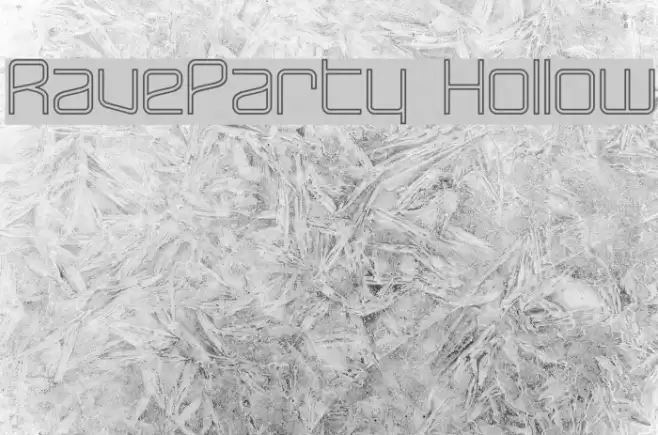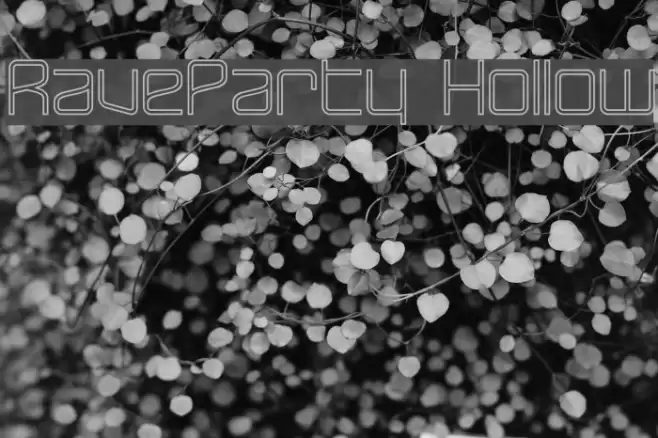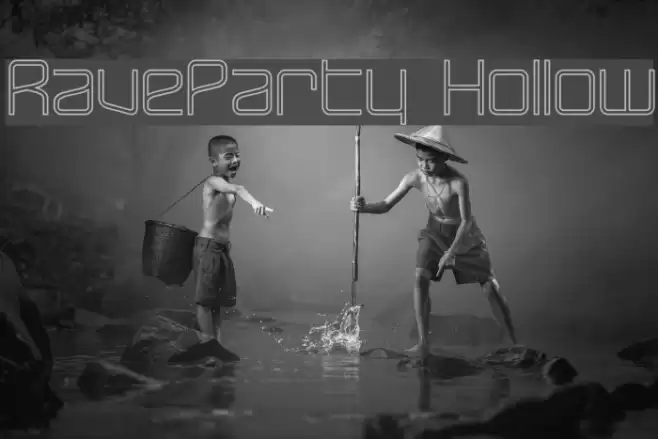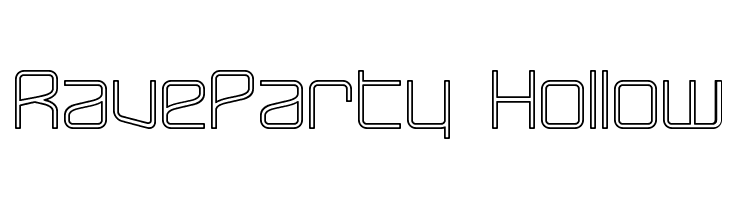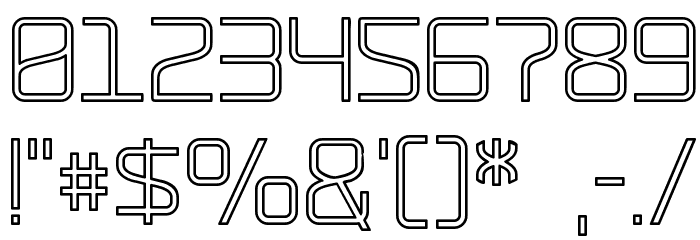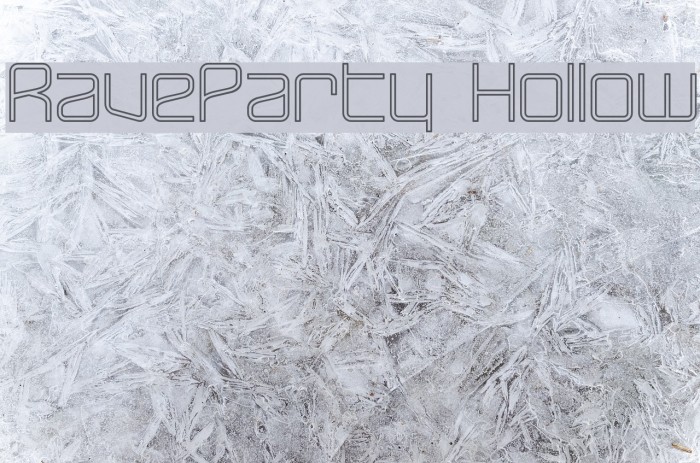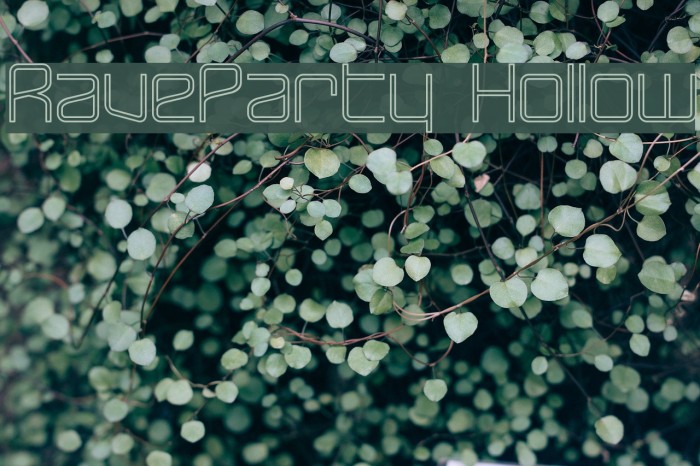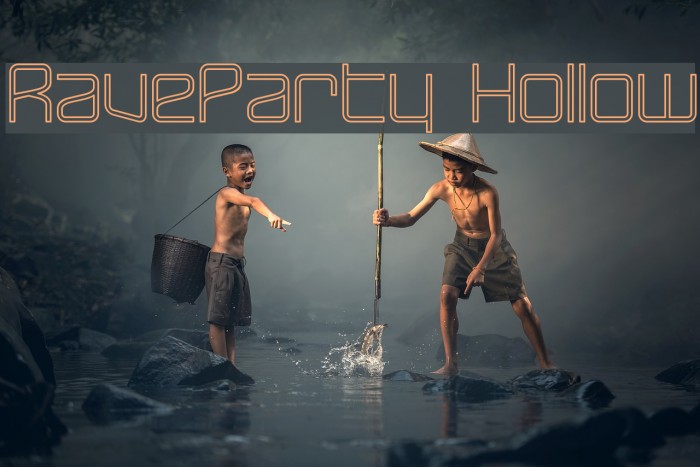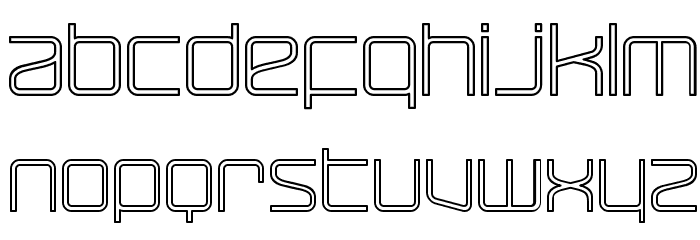
RaveParty Hollow Font
RaveParty Hollow Description
This font features a unique hollow design with a geometric and futuristic aesthetic. The characters are outlined, creating a sense of depth and dimension. The uppercase and lowercase letters maintain a consistent style, with straight lines and sharp angles, giving it a modern and tech-inspired look. The numerals and special characters follow the same design principles, ensuring uniformity across all elements. This font is highly stylized, making it ideal for creative and bold design projects.
A hollow, geometric font with a futuristic and modern aesthetic from Uncategorized fonts.
- Proposed Projects: Ideal for digital art, music festival posters, tech-themed branding, and modern graphic design projects.
- Use Case: Logos, Posters, Headlines